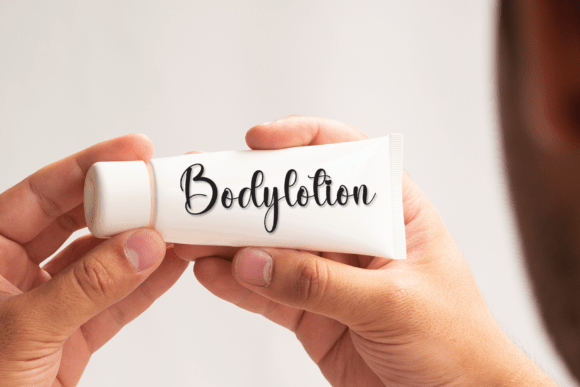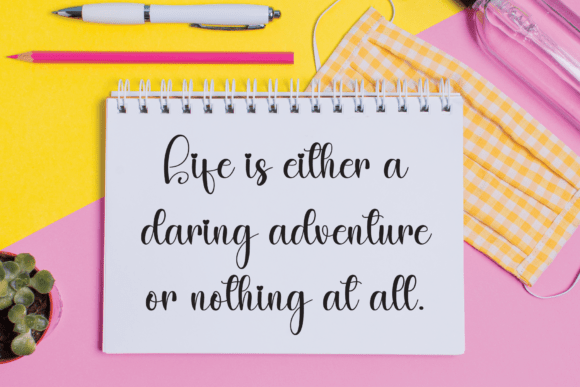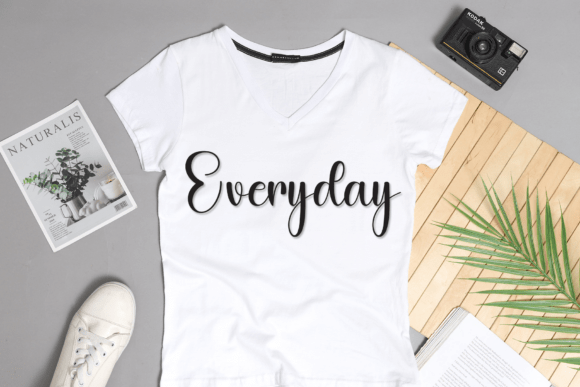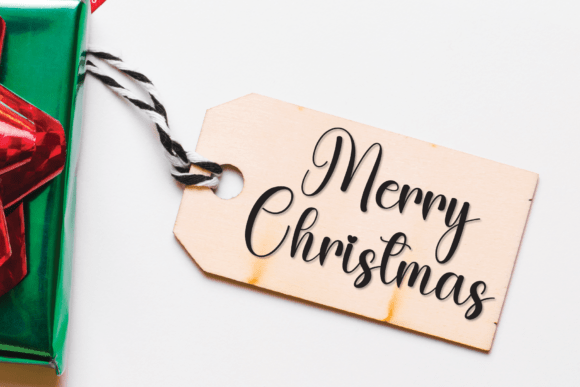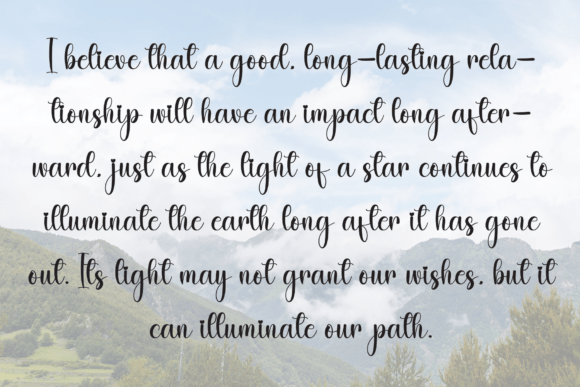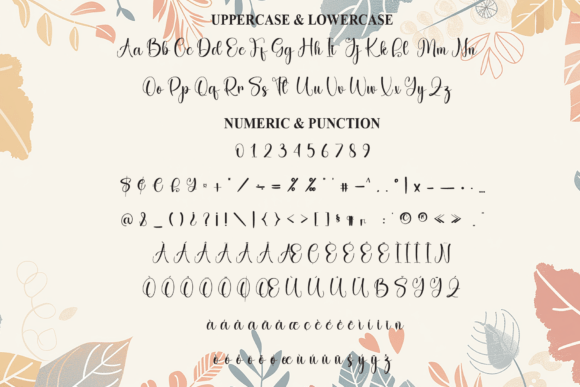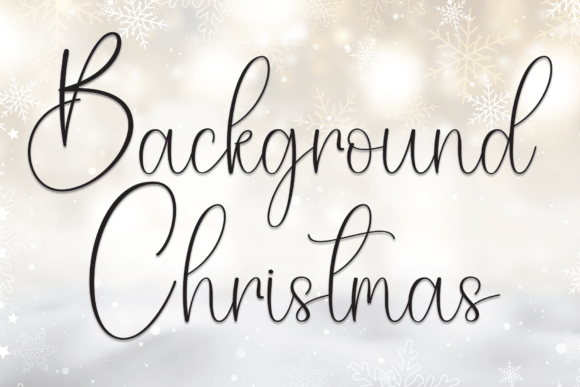
The Perfect Blend of Sweetness and Quirkiness: Introducing Autumn Font
Have you ever found yourself stuck on a design project, desperately searching for that perfect font to convey the exact tone you envision? You know, that moment when a single font can elevate an entire message and transport it to a whole new level of creativity? That’s exactly what happened to me when I stumbled upon Autumn Font – a delightful handwritten font that effortlessly strikes a balance between sweetness and quirkiness.
Designed to breathe life into any design venture, Autumn Font is the perfect companion for wedding invitations, greeting cards, and even the most playful of designs. Its charismatic penmanship is sure to captivate your audience, making every message you send ever so memorable. Whether you’re a seasoned designer or just starting out, Autumn Font is a valuable addition to your toolkit, ready to infuse your work with a dash of fun and personality.
Autumn Font Key Features
- Font Family: Autumn Font is a custom-designed font family with a unique, natural feel.
- Unique Characteristics: The Autumn Font features a distinctive, hand-drawn feel with subtle texture and organic shapes, perfect for creating a natural, earthy aesthetic.
Autumn Font Review
Overall, I’m impressed with the Autumn Font. ✨ The unique blend of modern and vintage elements creates a truly captivating aesthetic. The font’s elegant lines and subtle ornamentation make it perfect for projects that require a touch of sophistication and warmth.
The Autumn Font is well-suited for a variety of applications, including:
- Home decor and furniture labels
However, there are a few limitations to consider: ⚠️ The font may not be as versatile as some other fonts, and its ornate details may not be suitable for all projects. Additionally, some characters may require manual kerning to achieve the desired spacing.
Despite these limitations, I would still recommend the Autumn Font to designers looking for a unique and elegant solution. Its strengths far outweigh its weaknesses, making it a valuable addition to any font collection.
For a warm and inviting atmosphere, pair the Autumn Font with earthy colors and foliage-inspired graphics.
For a dramatic effect, use the Autumn Font in combination with fall-inspired textures and patterns.
For a seasonal greeting, use the Autumn Font in combination with fall-themed graphics and images.
The Autumn Font is perfect for:
Seasonal greeting cards and invitations.
Fall-themed social media posts and ads.
Wedding invitations and stationery for an autumnal wedding theme.
Branding and marketing materials for outdoor and nature-based businesses.